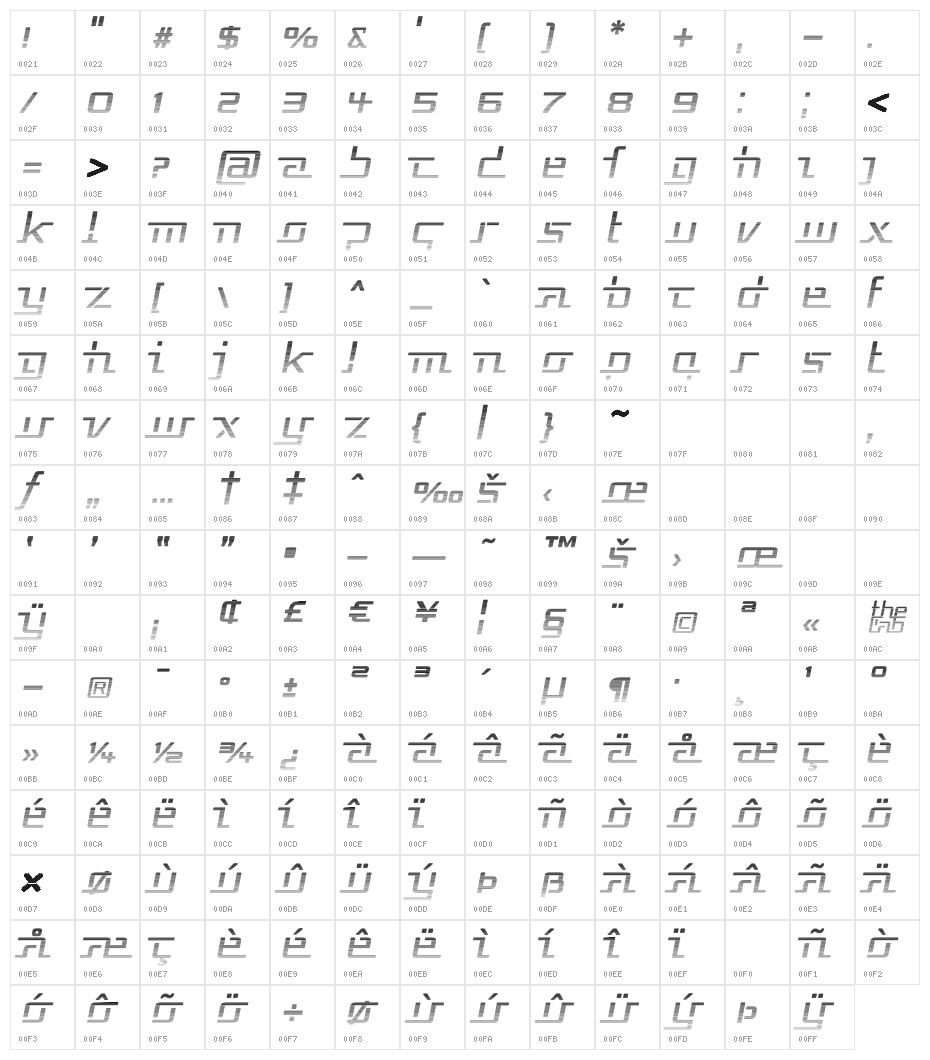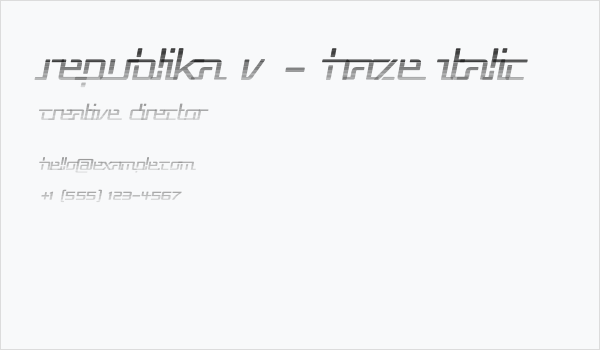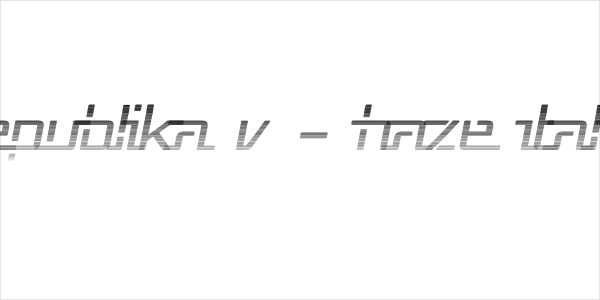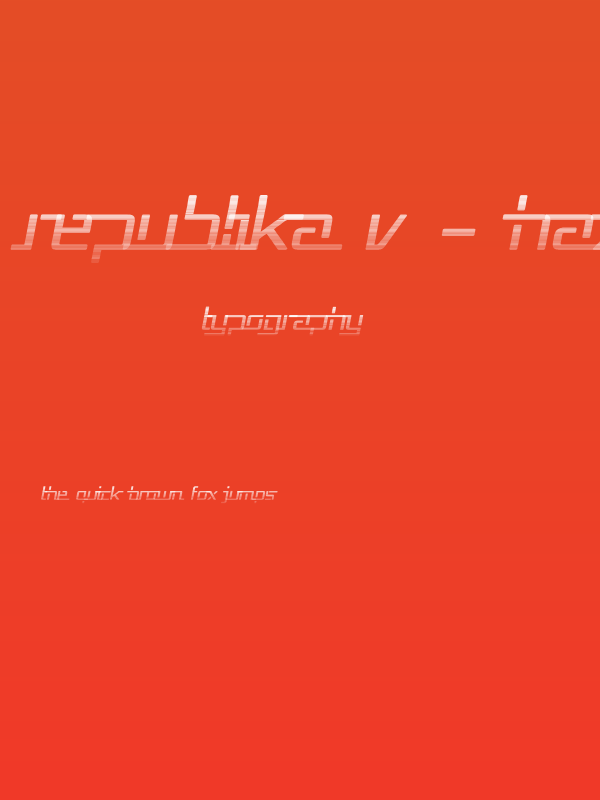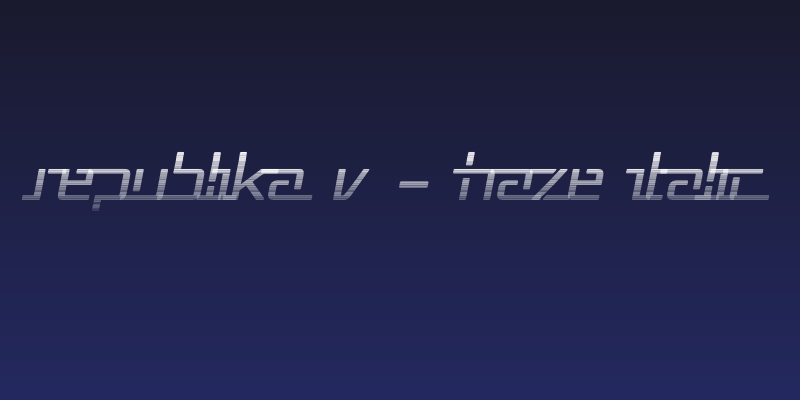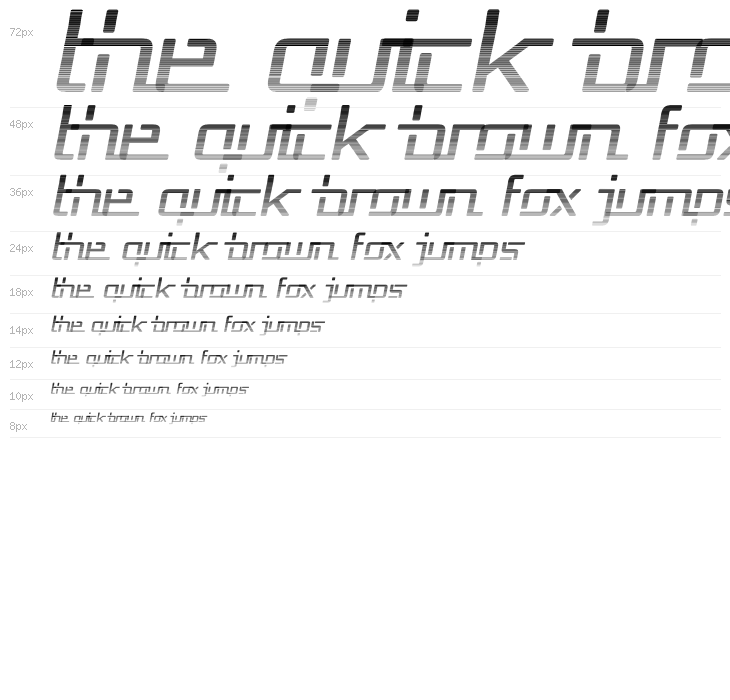
Republika V - Haze Italic Font
Republika V - Haze Italic Description
This font features a futuristic and dynamic design with a distinct italic slant, creating a sense of motion and speed. The characters are constructed with a combination of sharp angles and smooth curves, giving it a sleek and modern appearance. The use of horizontal lines within the characters adds a layered, almost digital effect, enhancing its contemporary style. The font maintains a consistent stroke width, contributing to its clean and uniform look. It is well-suited for projects that require a cutting-edge and tech-savvy aesthetic.